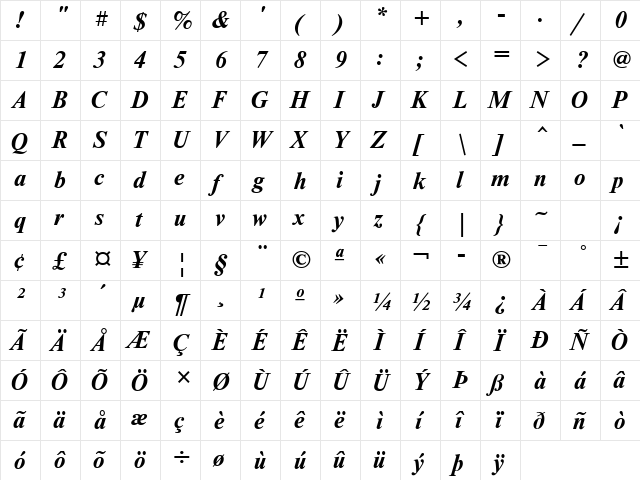
NewtonATT BoldItalic
Design Context for NewtonATT Typeface
NewtonATT takes a measured approach to typography — its balanced proportions and neutral character make it a reliable workhorse for both digital and print work. Its italic angle brings a sense of urgency and motion to the letterforms. The heavy weight commands attention and anchors typographic hierarchies.
Pro Tip: Use NewtonATT for emphasis, pull quotes, and subheadings where its slanted energy can add rhythm to the layout.